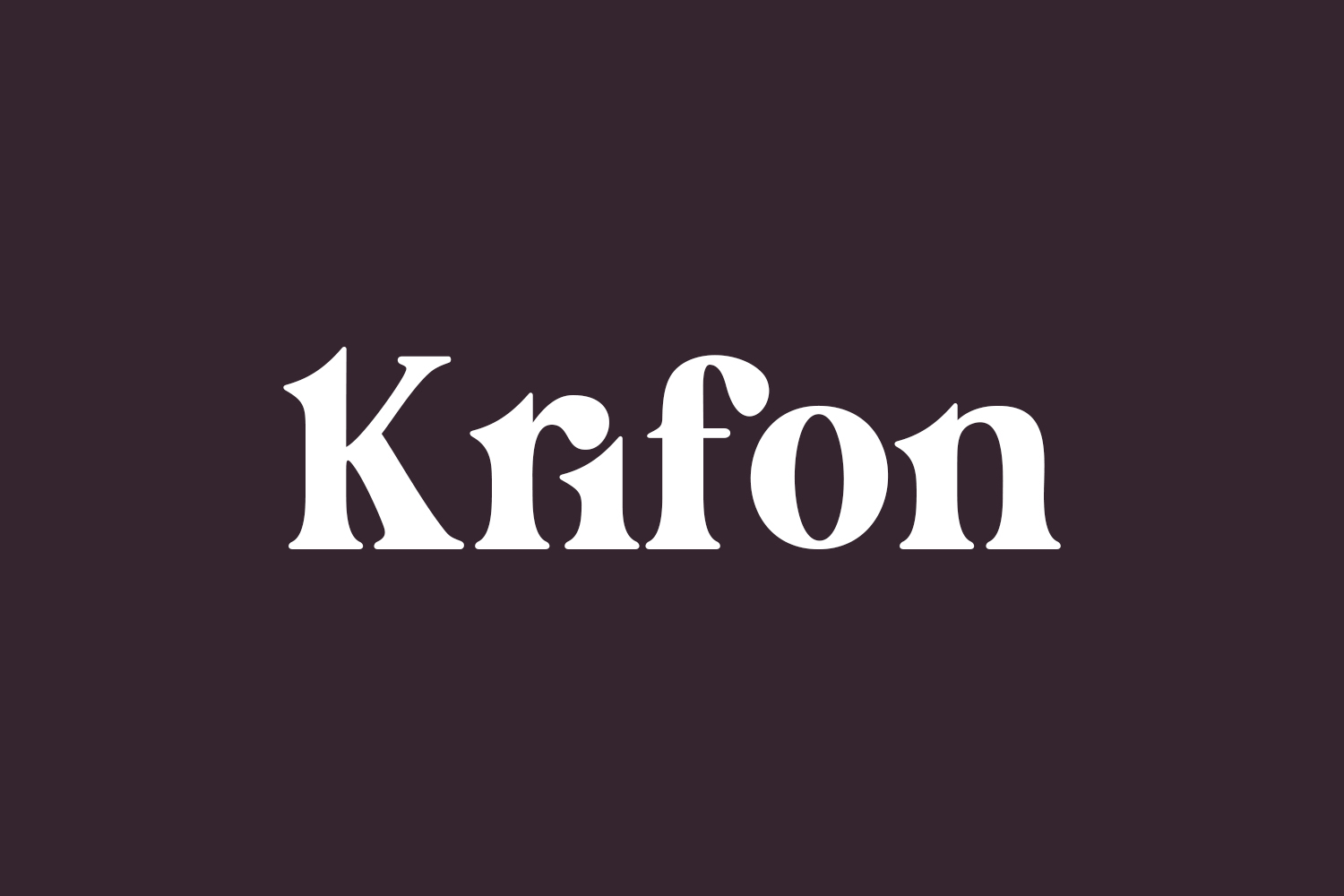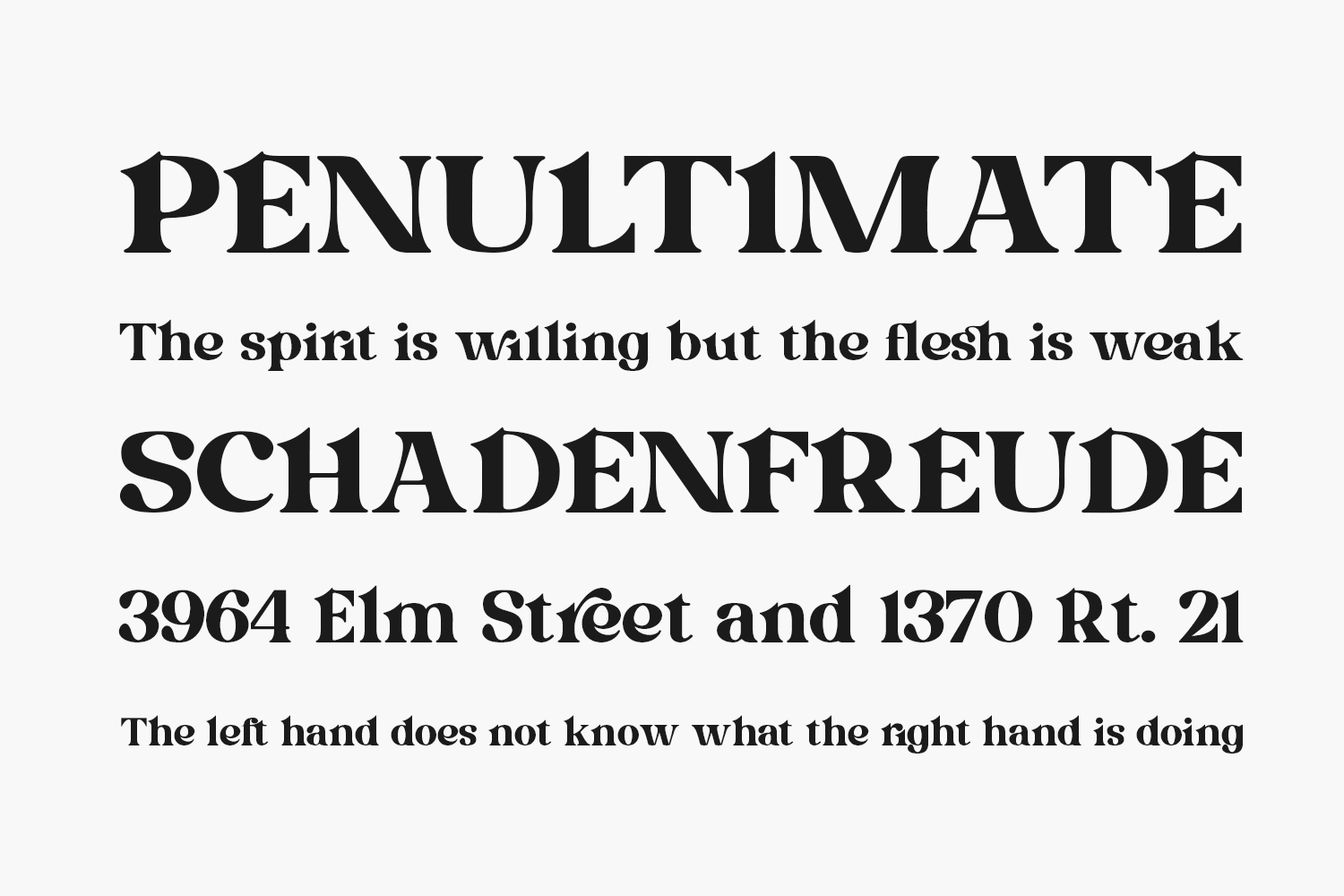
Krifon Free Font is an elegant and retro styled serif font. Krifon Free Font is free for personal use only. Please purchase the full version for commercial use.
Designed by Tebaltipis Studio